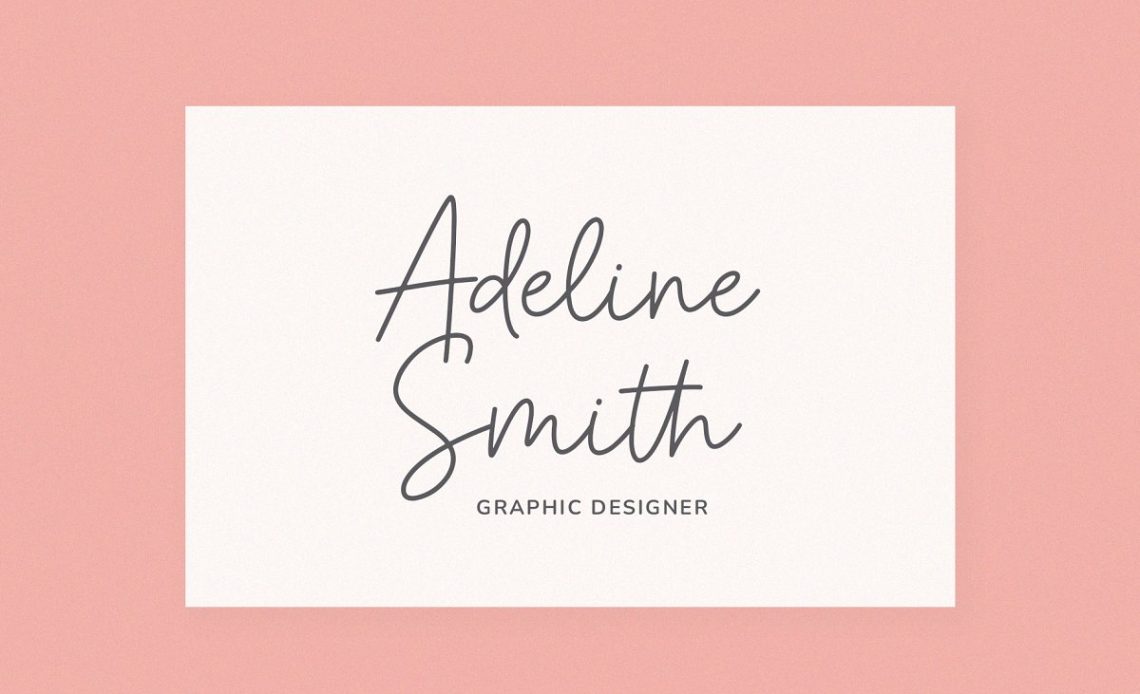
Looking for the perfect font to elevate your e-signature? Look no further than Olamitte, a stunning monoline handwritten font created by Seagulls Creative. With its simple and natural cursive, Olamitte is the ideal choice for anyone looking to add a touch of elegance and sophistication to their branding, labels, watermarks, photography, wedding invitations, stationery, social media posts, advertising, packaging, product design, and more.
What sets Olamitte apart from other script fonts is its versatility. Not only does it come with all the standard letters, numbers, symbols, punctuation, and ligatures, but it also works seamlessly on both PC and Mac, making installation a breeze. Plus, it's accessible in Adobe Illustrator, Adobe Photoshop, Adobe InDesign, and even Microsoft Word, so you can use it in all your favorite programs.